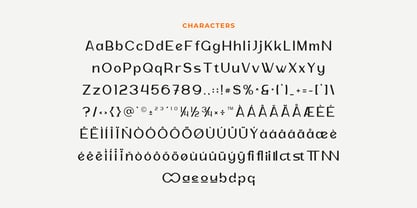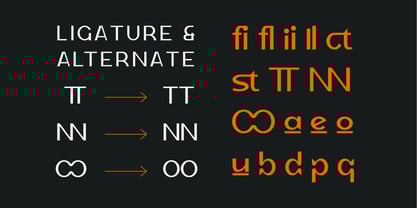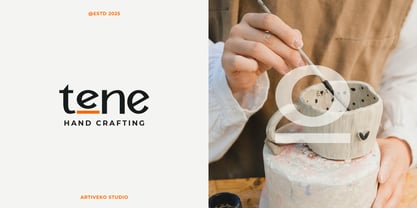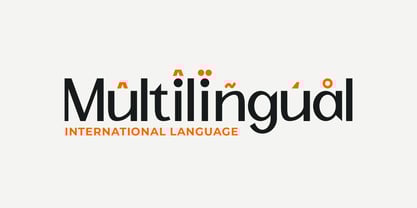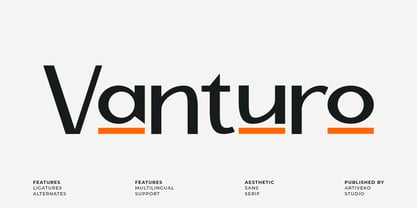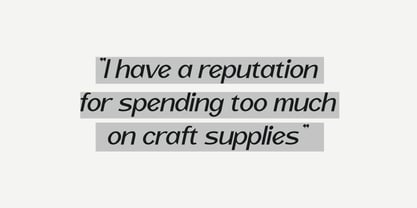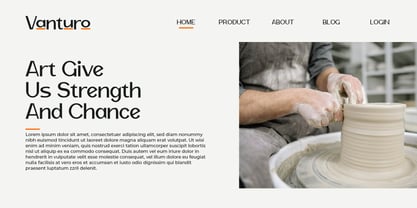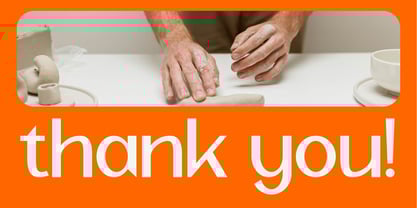
Vanturo
by Artiveko
The Vanturo Font Family was designed by Iwan Alwan and published by Artiveko. Vanturo contains 2 styles and family package options.
Vanturo is a daring and artistic sans serif font that redefines modern typography with a twist of originality. Featuring clean lines, experimental curves, and subtle quirks, Vanturo brings fresh energy to logos, branding, posters, packaging, and editorial layouts that need to make a statement.
Designed for creatives who crave distinction, Vanturo includes uppercase and lowercase letters, multilingual support, and a curated set of ligatures and stylistic alternates. Its strong presence and geometric flair allow it to shift effortlessly from minimal elegance to expressive display.
Whether you're building a trend-forward brand or designing bold visual content, Vanturo offers versatility with edge. Let your typography stand out with structure and creativity — with Vanturo, the sans serif font that breaks the mold while staying beautifully balanced.